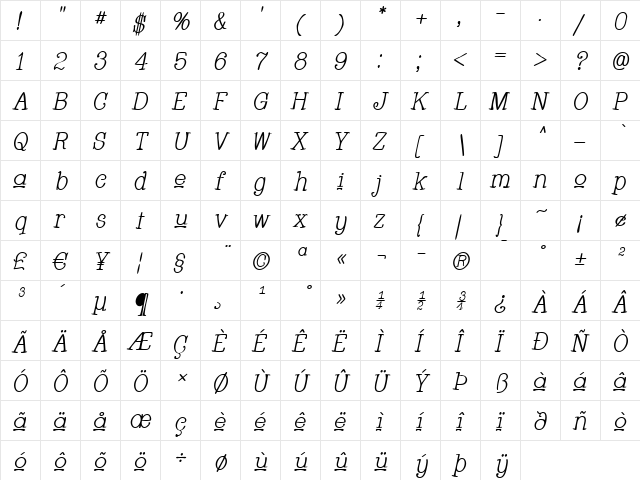
Whackadoo Upper Italic
| Designer | Graham Meade & Apostrophic Labs |
Design Context for Whackadoo Upper Typeface
Whackadoo Upper takes a measured approach to typography — its balanced proportions and neutral character make it a reliable workhorse for both digital and print work. Its italic angle brings a sense of urgency and motion to the letterforms.